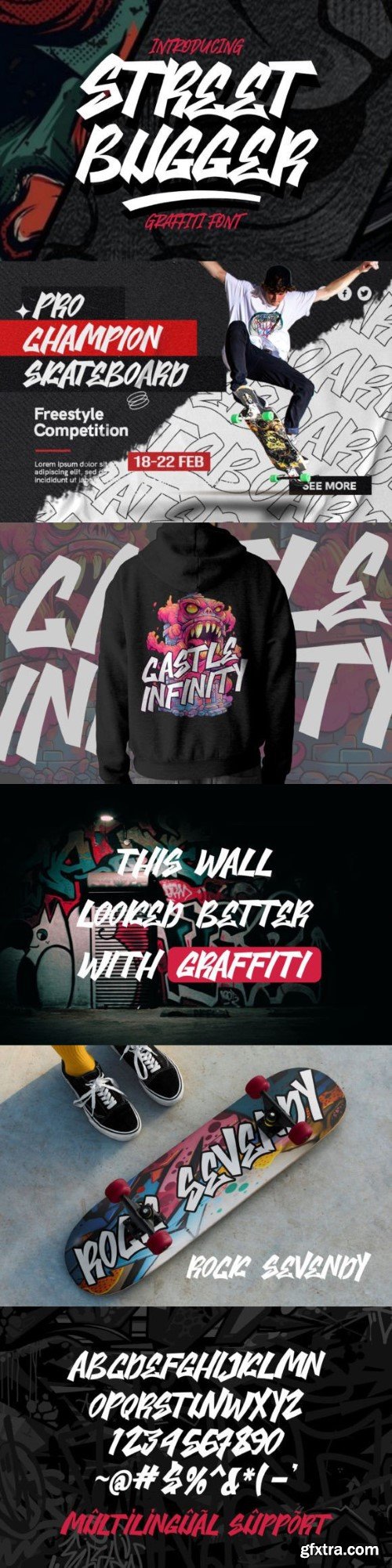
街痞字体
Graffiti art comes to life in the daring and dynamic “Street Bugger” font, flavored with distinctive swash characters. Known for their bold and expressive charm, graffiti fonts command attention and “Street Bugger” does just that, but with a unique twist. Every curve and line in this font carries an added flair courtesy of the decorative swash characters, amplifying its creative energy. Perfectly capturing the urban spunk and edgy vibe of street art, “Street Bugger” shines in a myriad of applications – from vibrant posters to street art-inspired endeavors or any imaginative venture that calls for a splash of bold and expressive typography.